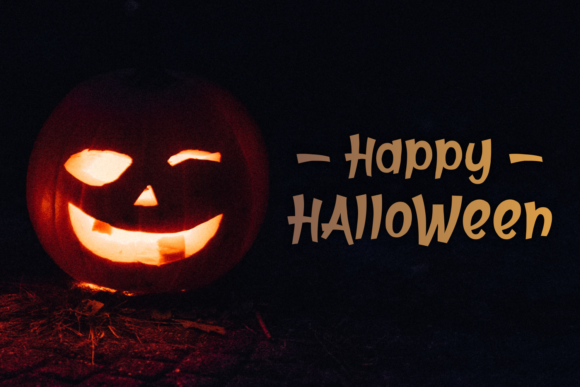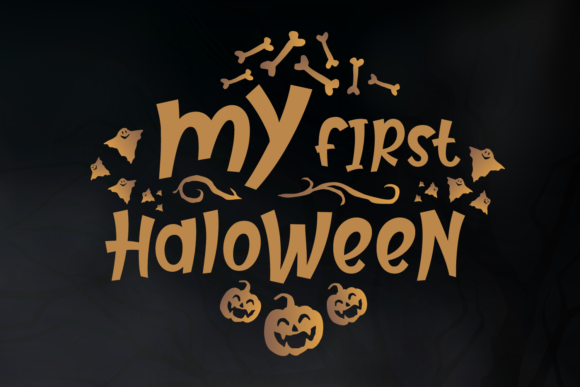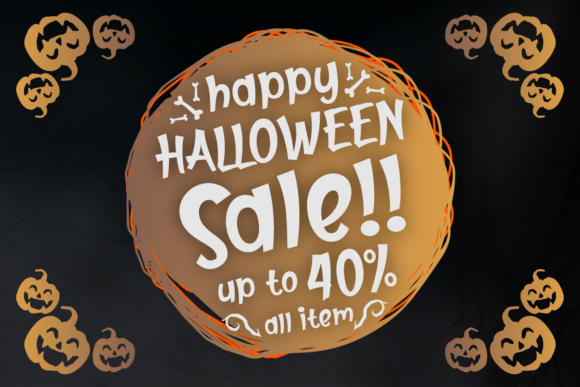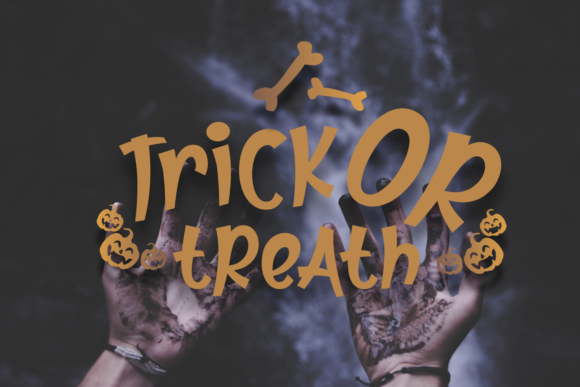
Hellowin Font
About Hellowin Font
Hellowin is a fun, playful but high quality Halloween font.
Make your Halloween decorations and designs stand out with this stunning font.